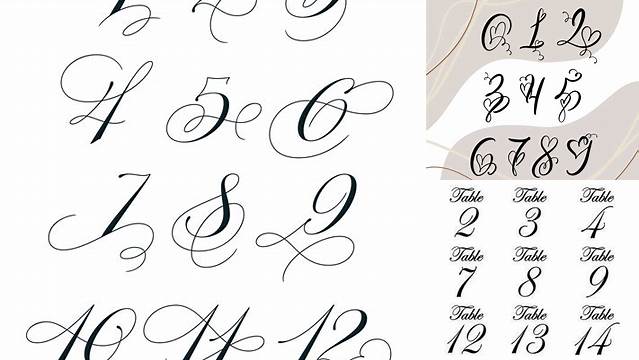
Cursive Number Fonts For Tattoos: Ideas & Inspiration
Choosing the right font for a tattoo is crucial, especially when it involves numbers. Cursive number fonts offer an elegant and personal touch, making them a popular choice for meaningful dates, quotes, or significant figures. But with so many options out there, how do you pick the perfect one? This guide dives deep into the world of cursive number fonts for tattoos, providing inspiration, tips, and everything you need to make an informed decision. Let's get started, guys!
1. The Appeal of Cursive Number Tattoos
The allure of cursive number tattoos lies in their ability to blend sophistication with personal significance. Unlike blocky or standard fonts, cursive styles add a flowing, artistic touch that can transform a simple date or number into a beautiful piece of body art. Cursive fonts bring an element of personalization, allowing for unique interpretations and styles that reflect your individuality. When choosing cursive number fonts for tattoos, you're not just selecting a font; you're choosing a visual representation of your story, a constant reminder etched in ink.
Imagine a cursive rendition of your wedding date or the birthdate of a loved one. The flowing lines and delicate curves can make these numbers feel more intimate and special. It's about turning a numerical value into a work of art that resonates with your emotions. Moreover, the versatility of cursive fonts means they can be adapted to fit various tattoo styles, from minimalist designs to intricate pieces that span across the body. Whether you prefer a bold, sweeping script or a subtle, delicate hand, there’s a cursive font out there that will perfectly capture the essence of your message. The key is to explore the options and find a font that not only looks beautiful but also feels true to your personal style and the significance of the numbers you're inking.
2. Key Considerations When Choosing Cursive Fonts
Before you jump into selecting a cursive font for your tattoo, there are a few key considerations to keep in mind. First and foremost, legibility is paramount. While a font might look stunning on a computer screen, it’s crucial to ensure that the numbers remain clear and easy to read once inked onto the skin. Cursive number fonts for tattoos can sometimes become muddled, especially if the script is overly elaborate or if the tattoo is placed in an area prone to stretching or fading. Think about how the font will hold up over time and under different lighting conditions. A beautifully written number is only effective if it's easily deciphered.
Secondly, consider the size and placement of your tattoo. A delicate, thin cursive font might look elegant on a small wrist tattoo, but it could lose its impact if scaled up for a larger piece. Similarly, a bold, sweeping script might be perfect for a forearm tattoo but overwhelming on a finger. The placement of your tattoo will also influence your font choice. Areas with more skin movement, like the elbows or knees, might cause the lines to blur slightly over time, so it’s wise to opt for a clearer, less intricate font. Consult with your tattoo artist about the best font styles and sizes for your chosen placement. They can offer invaluable advice based on their experience and expertise. Remember, the goal is to create a tattoo that not only looks beautiful but also stands the test of time. When selecting cursive number fonts for tattoos, it’s always better to err on the side of clarity and simplicity.
3. Popular Cursive Font Styles for Number Tattoos
When it comes to cursive number fonts for tattoos, the options are vast and varied, each with its unique charm and character. Some popular styles include calligraphy-inspired fonts, which often feature elegant swirls and flourishes, lending a touch of sophistication to your tattoo. These fonts are perfect for those seeking a timeless, classic look. Another favorite is the script font, known for its flowing, connected letters that mimic handwriting. Script fonts can range from delicate and romantic to bold and assertive, offering a wide spectrum of styles to choose from.
For a more contemporary feel, consider modern cursive fonts, which often incorporate clean lines and minimalist designs. These fonts are ideal for those who prefer a subtle yet stylish tattoo. There are also vintage-inspired cursive fonts that evoke a sense of nostalgia, perfect for tattoos with historical or sentimental significance. Think about the overall aesthetic you're aiming for and how the font will complement your personal style. Do you want your tattoo to have a traditional, old-world feel, or are you leaning towards a more modern, edgy look? The font you choose will play a significant role in conveying the message and mood of your tattoo. Don't be afraid to explore different styles and see how they look with your chosen numbers. Remember, selecting cursive number fonts for tattoos is a personal journey, and the best font is the one that resonates most with you.
4. Elegant Calligraphy-Inspired Fonts
Calligraphy-inspired fonts bring an air of timeless elegance to cursive number fonts for tattoos. These fonts draw inspiration from the art of beautiful writing, characterized by their fluid strokes, decorative flourishes, and graceful curves. If you're aiming for a tattoo that exudes sophistication and classic charm, calligraphy fonts are an excellent choice. The delicate strokes and intricate details of these fonts can transform a simple number into a work of art, adding depth and visual interest to your tattoo. Think of the elegant scripts used in historical documents and love letters – that’s the kind of refined beauty that calligraphy fonts can bring to your body art.
When considering calligraphy fonts, it’s essential to pay attention to the spacing and size. These fonts often have elaborate details that can become muddled if the tattoo is too small or the lines are too close together. Consult with your tattoo artist to determine the optimal size and placement for your chosen font. They can advise you on how to ensure that the intricate details remain clear and legible over time. Calligraphy fonts can also be customized to match your personal style. You can choose from a variety of styles, from formal and traditional to more relaxed and modern interpretations. Whether you're commemorating a special date, honoring a loved one, or simply expressing your appreciation for the art of calligraphy, these fonts offer a unique and beautiful way to do so. Selecting cursive number fonts for tattoos in this style can elevate the aesthetic appeal of your tattoo, making it a true reflection of your refined taste.
5. Flowing Script Fonts for a Personal Touch
Script fonts are known for their flowing, connected letters that mimic human handwriting, making them an ideal choice for adding a personal touch to cursive number fonts for tattoos. These fonts have a natural, organic feel that can make your tattoo seem more intimate and meaningful. The beauty of script fonts lies in their versatility – they can range from delicate and romantic to bold and expressive, allowing you to choose a style that perfectly captures your personality and the sentiment behind your tattoo.
Imagine a tattoo of your grandmother's birthday in her own handwriting style, or the date you met your significant other in a flowing script that evokes the romance of the occasion. Script fonts have the power to transform simple numbers into deeply personal statements. When selecting a script font, consider the readability and longevity of the design. Overly elaborate or thin scripts may not hold up well over time, especially if the tattoo is placed on an area of the body that experiences a lot of movement or friction. It's crucial to choose a script that is both beautiful and practical. Discuss your options with your tattoo artist, and ask for their advice on which scripts are best suited for your chosen placement and skin type. With the right script font, your cursive number fonts for tattoos can become a cherished reminder of the people, moments, and milestones that matter most in your life.
6. Modern Cursive Styles: Clean and Contemporary
For those who prefer a sleek, contemporary aesthetic, modern cursive styles offer a fresh take on cursive number fonts for tattoos. These fonts often feature clean lines, minimalist designs, and a subtle elegance that makes them perfect for those who appreciate understated beauty. Modern cursive fonts strike a balance between the fluidity of traditional cursive and the simplicity of modern typography, creating a look that is both stylish and timeless. If you're drawn to clean aesthetics and a less ornate design, modern cursive styles may be the perfect fit for your tattoo.
The appeal of modern cursive fonts lies in their versatility. They can be adapted to suit a variety of tattoo placements and sizes, from delicate wrist tattoos to larger pieces on the back or shoulder. The clean lines and uncluttered designs ensure that the numbers remain legible and impactful, even when viewed from a distance. When selecting a modern cursive font, consider the overall message you want to convey. Are you aiming for a subtle, sophisticated look, or something bolder and more assertive? The font you choose will play a crucial role in shaping the visual impact of your tattoo. Discuss your vision with your tattoo artist, and explore different modern cursive options to find the one that best complements your personal style and the significance of the numbers you're inking. Choosing cursive number fonts for tattoos in this style allows you to express your individuality with a touch of contemporary flair.
7. Vintage-Inspired Cursive Fonts: A Nostalgic Touch
Vintage-inspired cursive fonts add a touch of nostalgia and old-world charm to cursive number fonts for tattoos. These fonts evoke the elegance of bygone eras, bringing a sense of history and romance to your body art. If you're drawn to vintage aesthetics and appreciate the timeless beauty of classic designs, vintage cursive fonts can be a wonderful choice for your tattoo. Think of the elegant scripts used in vintage postcards, handwritten letters, and antique signage – that's the kind of character and charm that vintage fonts can bring to your ink.
Vintage cursive fonts come in a variety of styles, each with its unique personality and historical influence. Some are reminiscent of the Art Deco era, with their bold lines and geometric flourishes, while others evoke the delicate elegance of Victorian script. When selecting a vintage font, consider the overall message you want to convey and the era that resonates most with you. Do you want your tattoo to have a classic, timeless feel, or are you aiming for a more specific historical aesthetic? The font you choose will play a significant role in shaping the visual impact of your tattoo. It's also important to consider the legibility of the font. Vintage fonts can sometimes be more intricate and ornate, so it's crucial to ensure that the numbers remain clear and easy to read, even over time. Consulting with your tattoo artist is essential to ensure that your chosen font is suitable for your skin and placement. Choosing cursive number fonts for tattoos in this style allows you to express your individuality with a touch of vintage flair.
8. Bold vs. Delicate Cursive Fonts
When choosing cursive number fonts for tattoos, one of the key decisions you'll need to make is whether to opt for a bold or delicate style. Bold cursive fonts are characterized by their thick, strong lines, which make them highly visible and impactful. These fonts are a great choice if you want your tattoo to stand out and make a statement. They're also a good option for larger tattoos, as the thicker lines ensure that the numbers remain legible even from a distance. However, bold fonts can sometimes appear heavy or overwhelming if used in a small or delicate design.
On the other hand, delicate cursive fonts feature thin, elegant lines that create a subtle and refined look. These fonts are perfect for those who prefer a more understated aesthetic. They're also a good choice for smaller tattoos, as the thinner lines allow for more intricate detailing without appearing cluttered. However, delicate fonts may not be as visible from a distance, and they may require more frequent touch-ups over time, as the thin lines can fade more easily. The choice between bold and delicate fonts ultimately depends on your personal style and the overall message you want to convey with your tattoo. Consider the size and placement of your tattoo, as well as the level of impact you're aiming for. Bold fonts make a statement, while delicate fonts whisper elegance. Choosing cursive number fonts for tattoos in either style can be a powerful way to express your individuality.
9. Matching Cursive Fonts with Tattoo Styles
The key to a stunning tattoo lies not only in the font itself but also in how well it complements the overall tattoo style. When it comes to cursive number fonts for tattoos, aligning the font with the design aesthetic can make all the difference. For instance, if you're going for a traditional tattoo style with bold lines and classic imagery, a bold cursive font with a vintage feel might be the perfect match. The strong lines of the font will harmonize with the traditional elements, creating a cohesive and visually appealing design. On the other hand, if you're drawn to minimalist tattoos with clean lines and subtle details, a delicate cursive font might be more appropriate. The thin, elegant lines of the font will complement the simplicity of the design, creating a look that is both understated and sophisticated.
Consider the overall theme and mood of your tattoo when selecting a cursive font. A romantic tattoo might pair beautifully with a flowing script font, while a more edgy or modern design might benefit from a bold, contemporary cursive style. It's also important to think about the placement of your tattoo. A delicate cursive font might look stunning on a wrist or finger, but it could get lost on a larger area like the back or thigh. Conversely, a bold cursive font might be too overwhelming for a small, delicate placement. Consulting with your tattoo artist is crucial in this process. They can offer valuable insights into which fonts will best complement your chosen tattoo style and placement. Remember, the goal is to create a tattoo that is not only beautiful but also harmonious and balanced. Choosing cursive number fonts for tattoos that match the tattoo style enhances the overall aesthetic impact.
10. The Importance of Legibility in Cursive Number Tattoos
When selecting cursive number fonts for tattoos, legibility should always be a top priority. While a font might look stunning on a screen or in a design mockup, it's crucial to ensure that the numbers remain clear and easily readable once inked onto the skin. Cursive fonts, with their flowing lines and intricate details, can sometimes be challenging to decipher, especially if the design is complex or the tattoo is placed on an area that is prone to stretching or fading. A beautifully written number loses its impact if it can't be easily understood.
Consider the long-term visibility of your tattoo. Over time, ink can spread and lines can blur, especially in areas that experience a lot of movement or friction. A font that looks perfectly legible when it's fresh might become muddled and difficult to read after a few years. This is why it's essential to choose a cursive font that has a good balance between style and clarity. Opt for fonts that have distinct letterforms and sufficient spacing between the numbers. Avoid fonts that are overly ornate or have extremely thin lines, as these are more likely to lose their definition over time. Consult with your tattoo artist about the best font sizes and styles for your chosen placement. They can provide valuable advice on how to ensure that your tattoo remains legible for years to come. Choosing cursive number fonts for tattoos with legibility in mind is an investment in the longevity and impact of your body art.
11. Size and Placement Considerations for Number Fonts
The size and placement of your tattoo play a crucial role in determining the best cursive number fonts for tattoos. A font that looks stunning in a large design might be completely illegible in a smaller one, and vice versa. Similarly, the placement of your tattoo can influence the choice of font style and size. For instance, a delicate cursive font might look elegant on a wrist or ankle, but it could get lost on a larger area like the back or thigh. Conversely, a bold cursive font might be too overwhelming for a small, delicate placement like a finger or behind the ear.
When considering the size of your tattoo, think about the level of detail you want to include. If you're planning a small, minimalist design, you'll need to choose a font that is simple and clear, with well-defined letterforms. Avoid fonts that are overly ornate or have extremely thin lines, as these can become muddled and illegible when scaled down. For larger tattoos, you have more freedom to experiment with different font styles and sizes. You can opt for a bold, statement-making font or a more intricate cursive design. When considering the placement of your tattoo, think about the contours of your body and how the font will flow with your natural curves. Areas with a lot of movement, such as the elbows or knees, might require a simpler font that is less likely to distort over time. Consult with your tattoo artist about the best font sizes and styles for your chosen placement. They can provide valuable advice on how to create a tattoo that is both visually appealing and long-lasting. Choosing cursive number fonts for tattoos that suit the size and placement enhances the overall design.
12. Personalizing Your Cursive Number Tattoo
One of the greatest advantages of cursive number fonts for tattoos is the opportunity to personalize your design and make it truly unique. Unlike standard fonts, cursive styles offer a level of fluidity and artistic expression that allows you to create a tattoo that reflects your individual personality and style. There are countless ways to personalize your cursive number tattoo, from choosing a font that mimics your own handwriting to incorporating decorative elements and embellishments.
Consider adding flourishes, swirls, or other artistic details to your font to give it a more custom look. You can also play with the spacing and arrangement of the numbers to create a unique visual composition. Think about the meaning behind the numbers you're inking, and try to choose a font that captures the essence of that meaning. A romantic date might call for a flowing script font, while a significant year in your life might be better represented by a bold, vintage-inspired style. You can also incorporate other design elements into your tattoo, such as flowers, symbols, or geometric patterns, to enhance the overall aesthetic and add personal significance. Work closely with your tattoo artist to bring your vision to life. They can offer valuable insights and suggestions, and help you create a tattoo that is truly one-of-a-kind. Choosing cursive number fonts for tattoos allows for a high degree of personalization.
13. Adding Flourishes and Swirls to Cursive Fonts
Enhancing cursive number fonts for tattoos with flourishes and swirls is a fantastic way to add an extra layer of elegance and artistic flair to your design. These decorative elements can transform a simple font into a captivating piece of body art, lending it a unique personality and visual appeal. Flourishes and swirls are particularly well-suited to cursive fonts, as they complement the flowing lines and graceful curves of the script.
When adding flourishes and swirls, it's important to strike a balance between embellishment and legibility. Too many decorative elements can make the font appear cluttered and difficult to read, so it's crucial to use them judiciously. Consider the overall aesthetic you're aiming for, and choose flourishes and swirls that complement the style of your font. A delicate script might benefit from subtle, understated embellishments, while a bold cursive font can handle more elaborate flourishes. Think about the placement of your tattoo, as well. Flourishes and swirls can be particularly effective in larger designs, where there's more room to showcase the decorative elements. In smaller tattoos, it's best to keep the embellishments minimal and focused. Work closely with your tattoo artist to create a design that is both beautiful and balanced. They can offer valuable advice on how to incorporate flourishes and swirls in a way that enhances the font without compromising its legibility. Choosing cursive number fonts for tattoos and adding these elements elevates the design.
14. Combining Cursive Numbers with Other Design Elements
One of the most effective ways to create a visually striking tattoo is by combining cursive number fonts for tattoos with other design elements. This approach allows you to add depth, meaning, and visual interest to your tattoo, transforming it from a simple number into a captivating work of art. There are countless possibilities when it comes to combining cursive numbers with other designs, from incorporating symbolic imagery to adding decorative elements and textures.
Consider the message you want to convey with your tattoo, and choose design elements that complement and enhance that message. For instance, if you're commemorating a significant date, you might incorporate flowers that bloom during that season, or symbols that hold personal meaning for you. You can also use design elements to add context and background to your numbers. A vintage-inspired cursive font might pair beautifully with antique-style embellishments, while a modern script could be enhanced with geometric patterns or abstract designs. Think about the overall style of your tattoo, as well, and choose design elements that complement the font and create a cohesive aesthetic. A delicate cursive font might pair well with soft, flowing lines and subtle shading, while a bold script could be enhanced with strong, graphic elements. Consult with your tattoo artist about your ideas, and let them help you bring your vision to life. Combining cursive number fonts for tattoos with other design elements offers endless creative possibilities.
15. Cursive Numbers in Roman Numeral Tattoos
Roman numerals offer a classic and timeless way to represent numbers, and when combined with cursive fonts, they can create stunning and meaningful tattoos. Cursive number fonts for tattoos in Roman numerals add an air of elegance and sophistication to your body art, making them a popular choice for commemorating significant dates, anniversaries, or other milestones. The flowing lines of cursive fonts beautifully complement the bold, geometric shapes of Roman numerals, creating a harmonious and visually appealing design.
When incorporating cursive numbers into Roman numeral tattoos, it's important to consider the legibility of the design. Roman numerals can sometimes be challenging to decipher, especially when written in an ornate or elaborate font. Choose a cursive font that is clear and easy to read, and ensure that the numbers are well-spaced and distinct from one another. Think about the overall style of your tattoo, as well, and choose a font that complements the aesthetic you're aiming for. A delicate script can add a touch of femininity to your Roman numeral tattoo, while a bold cursive font can create a more masculine and impactful look. Consider the placement of your tattoo, as well. Roman numeral tattoos often look striking on areas like the wrist, forearm, or collarbone. Consult with your tattoo artist about the best font styles and placements for your chosen design. Choosing cursive number fonts for tattoos in Roman numerals is a timeless choice.
16. Color Considerations for Cursive Number Tattoos
The color you choose for your cursive number fonts for tattoos can significantly impact the overall look and feel of your design. While black ink is the most traditional and popular choice, there are countless other color options to consider, each with its own unique aesthetic and impact. The color you choose should complement your skin tone, the font style, and the overall design of your tattoo.
Black ink is a classic choice that offers excellent visibility and longevity. It's a versatile color that works well with a wide range of font styles and design elements. However, if you're looking for something a bit more unique, you might consider using colored ink. Colored inks can add vibrancy and personality to your tattoo, but it's important to choose colors that will hold up well over time. Some colors, such as pastels and light shades, can fade more quickly than others. Think about the overall message you want to convey with your tattoo, and choose colors that align with that message. A romantic tattoo might benefit from soft, muted colors, while a bold, statement-making design could be enhanced with vibrant hues. Consult with your tattoo artist about the best color options for your chosen font and design. They can provide valuable advice on which colors will work best with your skin tone and hold up well over time. Choosing cursive number fonts for tattoos and the right color adds depth to your design.
17. The Best Inks for Cursive Number Tattoos
Choosing the right ink is just as important as choosing the right font when it comes to cursive number fonts for tattoos. The quality of the ink can significantly impact the longevity, vibrancy, and overall appearance of your tattoo. High-quality inks will hold their color better over time, resist fading, and minimize the risk of allergic reactions or other complications. There are many different types of tattoo inks available, each with its own unique properties and characteristics.
Traditional black ink is a popular choice for its bold, lasting color and versatility. It's a great option for cursive number tattoos, as it provides excellent contrast and visibility. Colored inks can add vibrancy and personality to your tattoo, but it's important to choose inks that are specifically formulated for tattooing. These inks are designed to be safe for use on the skin and will hold their color better over time. When selecting tattoo inks, look for brands that are reputable, well-established, and known for producing high-quality products. Read reviews, do your research, and ask your tattoo artist for recommendations. A skilled tattoo artist will have a good understanding of different types of inks and can help you choose the best options for your chosen font and design. Choosing cursive number fonts for tattoos and the best ink ensures lasting beauty.
18. Finding Inspiration for Your Cursive Number Tattoo
Finding the perfect inspiration for your cursive number fonts for tattoos can be an exciting part of the tattoo process. With so many different fonts, styles, and design elements to choose from, the possibilities are endless. The key is to explore your options, gather ideas, and find a design that resonates with your personal style and the message you want to convey. There are many different sources of inspiration you can draw from, both online and offline.
Online, you can browse tattoo websites, social media platforms, and online font libraries to find examples of cursive number tattoos and different font styles. You can also create a mood board or Pinterest board to collect images and ideas that you find inspiring. Offline, you can look to vintage books, handwritten letters, and calligraphy samples for inspiration. You can also visit tattoo shops and browse their portfolios to see examples of work done by local artists. Think about the meaning behind the numbers you're inking, and try to choose a font and design that capture the essence of that meaning. A romantic date might call for a flowing script font, while a significant year in your life might be better represented by a bold, vintage-inspired style. Choosing cursive number fonts for tattoos often starts with gathering inspiration.
19. Working with a Tattoo Artist to Design Your Tattoo
Collaborating with a skilled tattoo artist is essential for bringing your vision of cursive number fonts for tattoos to life. A tattoo artist can offer valuable expertise and guidance throughout the design process, helping you choose the best font, placement, and design elements for your tattoo. They can also ensure that your tattoo is executed safely and professionally, resulting in a beautiful and long-lasting piece of body art.
Start by finding a tattoo artist who specializes in the style of tattoo you're interested in. Look at their portfolio, read reviews, and talk to other people who have gotten tattoos from them. Once you've found an artist you trust, schedule a consultation to discuss your ideas. Bring any inspiration images or sketches you have, and be prepared to answer questions about your preferences and vision. During the consultation, your tattoo artist will assess your skin type, discuss placement options, and help you choose the best font and design for your tattoo. They may also create a custom design for you, based on your specifications. It's important to communicate openly and honestly with your tattoo artist throughout the process, and to trust their expertise and guidance. Choosing cursive number fonts for tattoos benefits greatly from artist collaboration.
20. Preparing for Your Cursive Number Tattoo Appointment
Proper preparation is key to a successful and comfortable tattoo experience. Before your cursive number fonts for tattoos appointment, there are several steps you can take to ensure that your skin is in the best possible condition and that you're feeling relaxed and ready for the process. Start by getting a good night's sleep in the days leading up to your appointment. Being well-rested will help your body cope with the stress of getting a tattoo. Stay hydrated by drinking plenty of water in the days before your appointment. Hydrated skin is more receptive to ink and will heal more quickly.
Avoid alcohol and blood-thinning medications for at least 24 hours before your appointment. These substances can increase bleeding and make it more difficult for the tattoo artist to work. Eat a healthy meal before your appointment to keep your blood sugar stable and prevent dizziness. Wear comfortable clothing that allows easy access to the area being tattooed. If you have any concerns or questions about the tattoo process, don't hesitate to ask your tattoo artist. They can provide valuable information and help you feel more at ease. Mentally prepare yourself for the discomfort of getting a tattoo. While the pain is manageable, it's helpful to know what to expect. Choosing cursive number fonts for tattoos is exciting, so preparing properly enhances the experience.
21. Aftercare Tips for Cursive Number Tattoos
Proper aftercare is crucial for ensuring that your cursive number fonts for tattoos heal properly and remain vibrant for years to come. The first few weeks after getting a tattoo are critical, as this is when your skin is most vulnerable to infection and damage. Follow your tattoo artist's aftercare instructions carefully, and don't hesitate to contact them if you have any concerns.
Generally, the aftercare process involves keeping the tattooed area clean and moisturized. Your tattoo artist will likely apply a bandage or protective covering to your new tattoo, which you should leave on for the recommended amount of time (usually a few hours or overnight). Once you remove the bandage, gently wash the tattooed area with mild soap and warm water. Pat it dry with a clean towel, and apply a thin layer of fragrance-free, hypoallergenic moisturizer. Repeat this process several times a day, as needed, to keep the skin hydrated. Avoid picking, scratching, or rubbing your tattoo, as this can damage the healing skin and lead to infection or scarring. Protect your tattoo from direct sunlight by wearing loose-fitting clothing or applying sunscreen (once the tattoo is fully healed). Choosing cursive number fonts for tattoos means committing to aftercare for long-lasting results.
22. Long-Term Care for Cursive Number Tattoos
While the initial aftercare period is crucial for healing, long-term care is essential for maintaining the vibrancy and clarity of your cursive number fonts for tattoos. With proper care and maintenance, your tattoo can look its best for years to come. One of the most important steps you can take to protect your tattoo is to shield it from the sun. Sun exposure can cause tattoo ink to fade over time, so it's important to apply sunscreen to your tattoo whenever you're going to be outdoors. Choose a sunscreen with a high SPF (30 or higher) and reapply it frequently, especially if you're swimming or sweating.
Keep your skin well-hydrated by drinking plenty of water and using a good-quality moisturizer. Hydrated skin will help your tattoo look its best and prevent the ink from drying out and fading. Avoid harsh chemicals and abrasive products on your tattoo, as these can damage the ink and irritate your skin. If you notice any changes in your tattoo, such as fading, blurring, or raised areas, consult with your tattoo artist or a dermatologist. They can assess the situation and recommend appropriate treatment options. Choosing cursive number fonts for tattoos means ensuring their long-term beauty.
23. Touch-Ups and Refreshing Your Cursive Tattoo
Even with the best aftercare and long-term maintenance, cursive number fonts for tattoos may require touch-ups over time to maintain their vibrancy and clarity. Factors such as sun exposure, skin elasticity, and the natural fading process can cause tattoo ink to lose its luster. Touch-ups are a normal part of tattoo ownership and are a simple way to keep your ink looking its best. If you notice that your tattoo is starting to fade, blur, or lose its definition, it's time to consider a touch-up.
Schedule a consultation with your tattoo artist to discuss your options. They can assess the condition of your tattoo and recommend the best course of action. During a touch-up, your tattoo artist will add fresh ink to the faded areas of your tattoo, restoring its original vibrancy and clarity. They may also make minor adjustments to the design to improve its overall appearance. The frequency of touch-ups will vary depending on your skin type, lifestyle, and the color of your ink. Black ink tends to hold its color better than lighter colors, so it may require fewer touch-ups. Choosing cursive number fonts for tattoos means being prepared for touch-ups to keep them looking fresh.
24. Common Mistakes to Avoid with Cursive Tattoos
When it comes to cursive number fonts for tattoos, there are some common mistakes you'll want to avoid to ensure that your tattoo looks its best and heals properly. One of the biggest mistakes is choosing a font that is too small or intricate. Cursive fonts can be delicate, and if the lines are too thin or the design is too complex, the tattoo may blur over time and become difficult to read. It's important to choose a font that is legible and will hold up well over time.
Another common mistake is neglecting aftercare instructions. Proper aftercare is crucial for preventing infection and ensuring that your tattoo heals properly. Follow your tattoo artist's instructions carefully, and don't hesitate to contact them if you have any questions or concerns. Picking, scratching, or rubbing your tattoo is also a big no-no. This can damage the healing skin and lead to scarring or infection. Avoid exposing your tattoo to direct sunlight, as this can cause the ink to fade. Apply sunscreen to your tattoo whenever you're going to be outdoors. Rushing the healing process is another mistake to avoid. It takes time for a tattoo to fully heal, so be patient and allow your skin to recover properly. Choosing cursive number fonts for tattoos means being aware of potential pitfalls.
25. Trends in Cursive Number Tattoo Designs
The world of tattoo art is constantly evolving, with new trends and styles emerging all the time. Cursive number fonts for tattoos are no exception, and there are several exciting trends to watch out for in this area. One popular trend is the use of minimalist cursive fonts. These fonts feature clean lines, simple designs, and a subtle elegance that is perfect for those who prefer an understated aesthetic.
Another trend is the incorporation of cursive numbers into larger, more elaborate tattoo designs. This could involve combining cursive numbers with flowers, symbols, or geometric patterns to create a visually striking and meaningful tattoo. Vintage-inspired cursive fonts are also making a comeback. These fonts evoke the elegance of bygone eras and add a touch of nostalgia to your tattoo. The use of colored ink is another trend to watch out for. Colored inks can add vibrancy and personality to your cursive number tattoo, but it's important to choose colors that will hold up well over time. Personalized cursive fonts are also gaining popularity. This involves working with a tattoo artist to create a custom font that is unique to you and reflects your personal style. Choosing cursive number fonts for tattoos can be influenced by current trends.
26. The Cultural Significance of Number Tattoos
Numbers hold significant meaning in various cultures and belief systems around the world, making cursive number fonts for tattoos a powerful way to express personal stories and beliefs. In numerology, each number is associated with specific traits, energies, and life paths. For example, the number seven is often associated with spirituality and intuition, while the number eight is linked to abundance and success. Choosing a number that resonates with your personal numerological profile can add a deeper layer of meaning to your tattoo.
In some cultures, certain numbers are considered lucky or unlucky. For instance, in many Western cultures, the number 13 is seen as unlucky, while in Chinese culture, the number eight is considered particularly auspicious. Incorporating numbers with cultural significance into your tattoo can be a way to honor your heritage or express your beliefs. Dates are another common choice for number tattoos, representing significant events such as birthdays, anniversaries, or milestones. A cursive font can add a personal touch to these commemorative tattoos, making them even more special. Choosing cursive number fonts for tattoos taps into the cultural weight of numbers.
27. Choosing Numbers with Personal Significance
One of the most compelling reasons to get cursive number fonts for tattoos is the opportunity to commemorate dates, numbers, or sequences that hold deep personal meaning. Whether it's a birthdate, anniversary, graduation year, or a significant achievement, numbers can serve as powerful reminders of important moments and milestones in your life. When choosing numbers for your tattoo, take the time to reflect on the events and experiences that have shaped who you are.
Consider the numbers that have played a pivotal role in your journey, and choose those that resonate most strongly with your heart and soul. Think about the people who have made a difference in your life, and consider incorporating their birthdates or other significant numbers into your tattoo. A cursive font can add a touch of elegance and personalization to these tributes, making them even more meaningful. You might also choose numbers that represent your personal values, goals, or aspirations. A sequence of numbers that reflects your life path or a number that symbolizes your passions can serve as a constant source of inspiration and motivation. Choosing cursive number fonts for tattoos starts with personal significance.
28. Expressing Milestones with Cursive Number Tattoos
Cursive number fonts for tattoos provide a beautiful and lasting way to commemorate life's milestones. From birthdays and anniversaries to graduations and accomplishments, these tattoos can serve as poignant reminders of significant events and turning points. A cursive font adds a personal and elegant touch to these commemorations, making them even more special. Think about the milestones you want to celebrate and the numbers that represent them. A birthdate tattoo can honor a new life or celebrate your own existence. An anniversary tattoo can symbolize the enduring love and commitment between you and your partner.
Graduation year tattoos can mark the culmination of years of hard work and dedication. Achievement tattoos can celebrate personal victories, such as overcoming a challenge, achieving a goal, or reaching a new level of success. Consider the font style that best reflects the mood and significance of the milestone. A delicate script might be perfect for a romantic anniversary tattoo, while a bold cursive font could be a fitting choice for a graduation or achievement tattoo. You can also incorporate other design elements into your milestone tattoo, such as flowers, symbols, or quotes, to add even more meaning and personalization. Choosing cursive number fonts for tattoos is a beautiful way to express milestones.
29. The Longevity and Timelessness of Number Tattoos
Unlike some tattoo trends that come and go, cursive number fonts for tattoos possess a quality of longevity and timelessness. Numbers are a fundamental part of human experience, representing dates, measurements, quantities, and concepts that transcend time and culture. This inherent universality makes number tattoos a classic choice that will remain meaningful and relevant for years to come. Cursive fonts, with their elegant and flowing lines, add to this timeless appeal. Unlike trendy fonts that can quickly look dated, cursive styles evoke a sense of tradition and sophistication that will never go out of style.
When choosing a font for your number tattoo, consider the long-term aesthetic. A well-chosen cursive font will not only look beautiful today but will also age gracefully and retain its charm over time. The personal significance of number tattoos also contributes to their longevity. Unlike tattoos that are chosen for their visual appeal alone, number tattoos often represent deeply meaningful events, relationships, or beliefs. This personal connection ensures that the tattoo will continue to hold value and relevance for the wearer throughout their life. Choosing cursive number fonts for tattoos ensures a timeless piece of art.
30. The Future of Cursive Number Tattoo Art
The art of cursive number fonts for tattoos continues to evolve, with new styles, techniques, and technologies constantly emerging. As tattoo artists push the boundaries of creativity and innovation, the future of cursive number tattoo art looks bright and exciting. One trend to watch is the integration of digital design tools into the tattoo process. Artists are using software and digital drawing tablets to create intricate and precise cursive number designs, allowing for greater customization and detail than ever before.
Another trend is the exploration of new ink formulations and techniques. Artists are experimenting with different types of ink to create unique effects, such as watercolor tattoos, glow-in-the-dark tattoos, and tattoos that change color with temperature. The use of 3D tattoo techniques is also on the rise, creating tattoos with depth and dimension that seem to pop off the skin. Cursive number tattoos are being combined with other art forms, such as calligraphy, illustration, and geometric designs, to create visually stunning and highly personalized pieces. The possibilities are endless, and the future of cursive number tattoo art promises to be a fascinating blend of tradition and innovation. Choosing cursive number fonts for tattoos means being part of a dynamic art form.